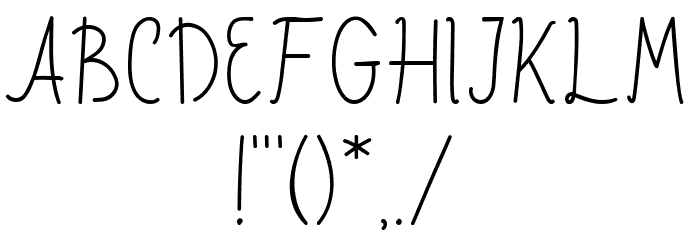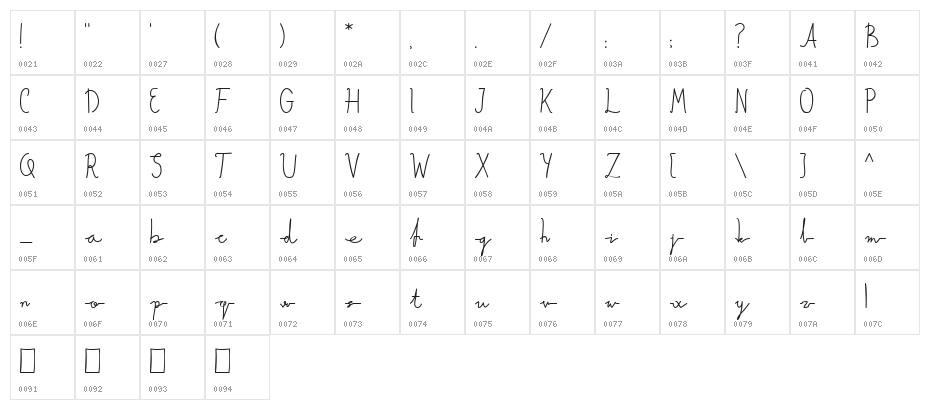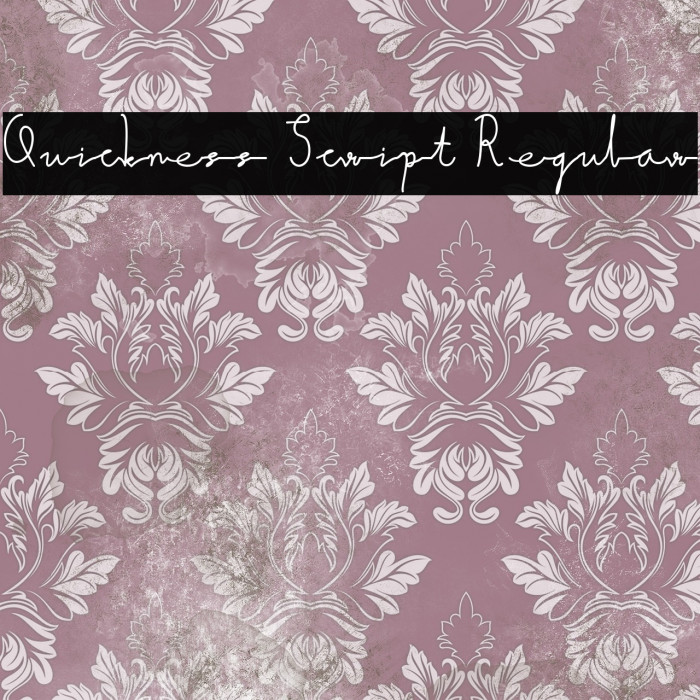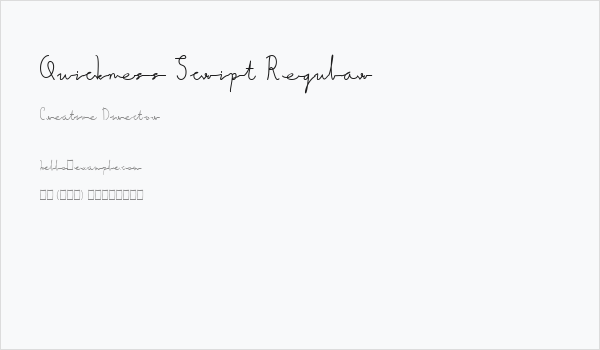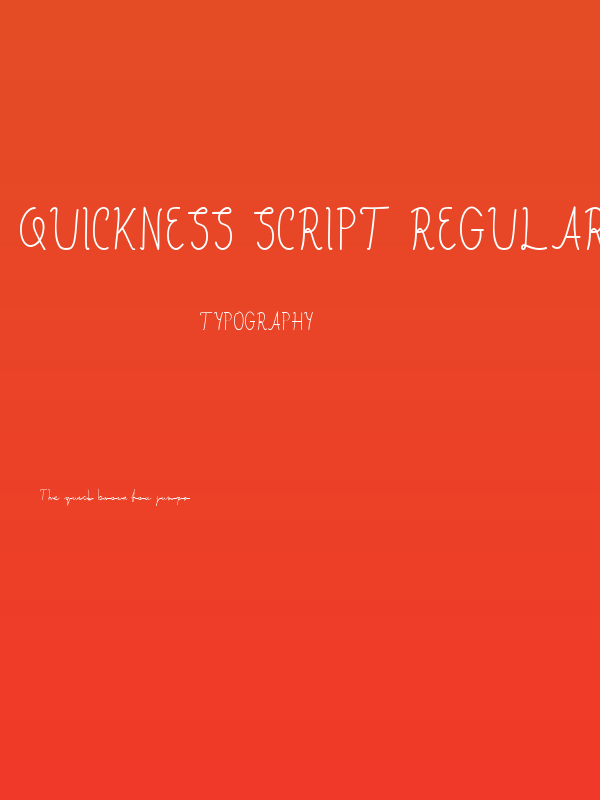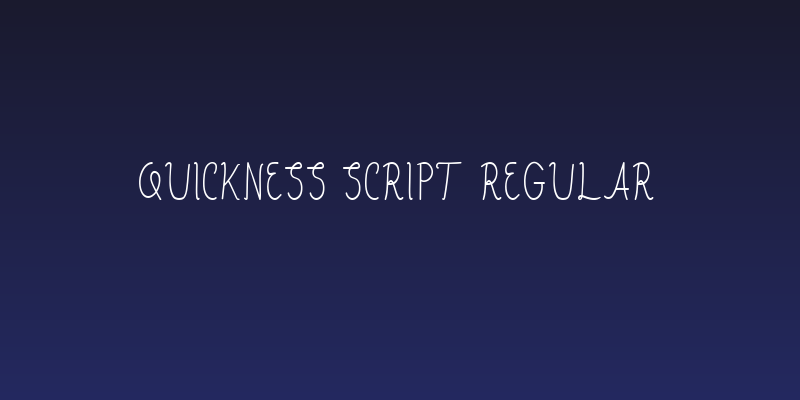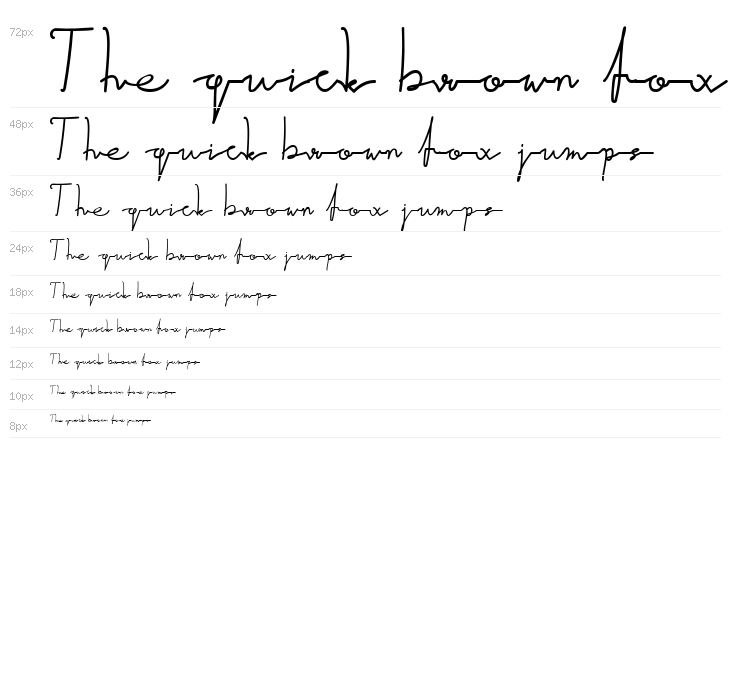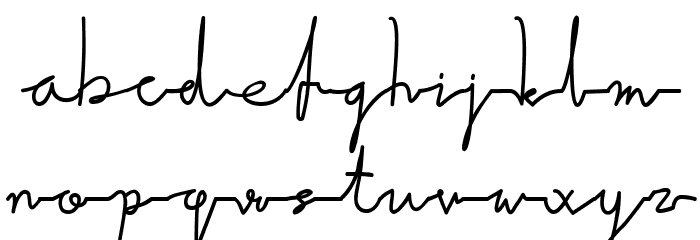
Quickness Script Regular Font
Quickness Script Regular Description
This font features a playful and casual script style, characterized by its fluid and connected strokes. The uppercase letters are tall and slightly narrow, giving a sense of elegance and sophistication. The lowercase letters are more free-flowing, with some characters extending below the baseline, adding a dynamic and lively feel. The overall appearance is informal yet stylish, making it suitable for creative and artistic projects. The font maintains a consistent stroke width, providing a harmonious and balanced look. Special characters are integrated seamlessly, enhancing its versatility.
| Use Case | Logos, Invitations, Greeting cards |
| Proposed Projects | Ideal for invitations, greeting cards, personal branding, and creative projects. |